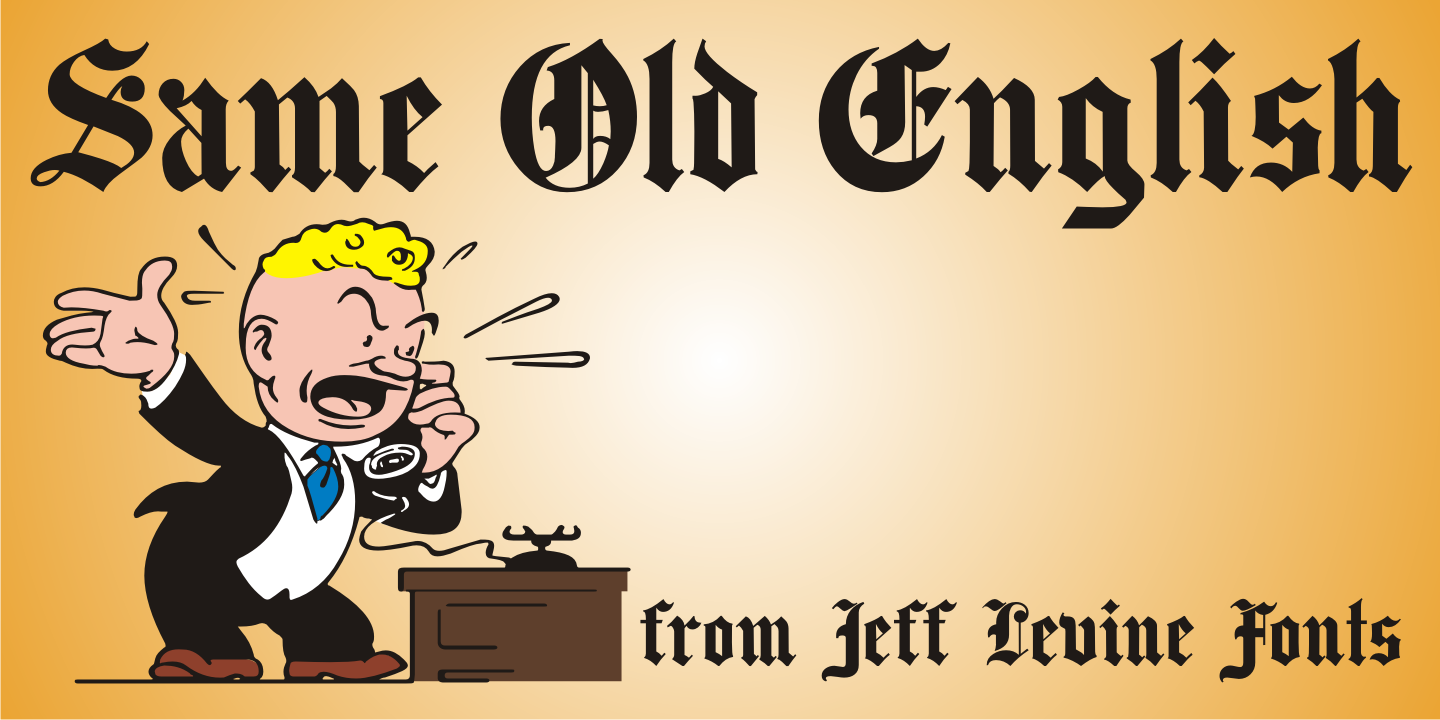
This traditional typeface is perfect for classic publications, vintage newspapers, traditional diplomas, heritage brands, old-world restaurants, timeless wedding invitations, historic reproductions, classic book covers, traditional signage, established institutions, legacy companies, and nostalgic marketing campaigns. The font's enduring design makes it ideal for projects that celebrate time-honored traditions, reliable consistency, and the comforting familiarity of established typographic conventions that never go out of style.
Same Old English JNL Font is exciting because it embodies timeless reliability and classic tradition through its familiar letterforms and heritage-inspired character structure. The font's steady proportions and traditional appeal create an atmosphere of trustworthiness, consistency, and enduring quality, making it perfect for brands that want to convey stability, tradition, and the confidence that comes from proven excellence. Its dependable personality ensures instant recognition while maintaining exceptional readability across various traditional applications.
The Same Old English JNL Font family includes multiple classic variations: Light Heritage, Regular Traditional, Medium Established, Bold Timeless, and Black Classic weights, each available in standard and ornate versions. Special heritage editions feature traditional alternates, classic ornaments, and period-appropriate flourishes that enhance the font's enduring appeal, providing designers with comprehensive tools for creating authentic traditional communications.
Embrace timeless tradition with Same Old English JNL Font Free Download – a typeface that represents enduring quality and classic reliability. Whether you're developing heritage branding, traditional publications, or nostalgic marketing materials, this font delivers the classic presence and traditional authenticity your projects need while ensuring exceptional performance and timeless impact across all heritage and traditional applications.